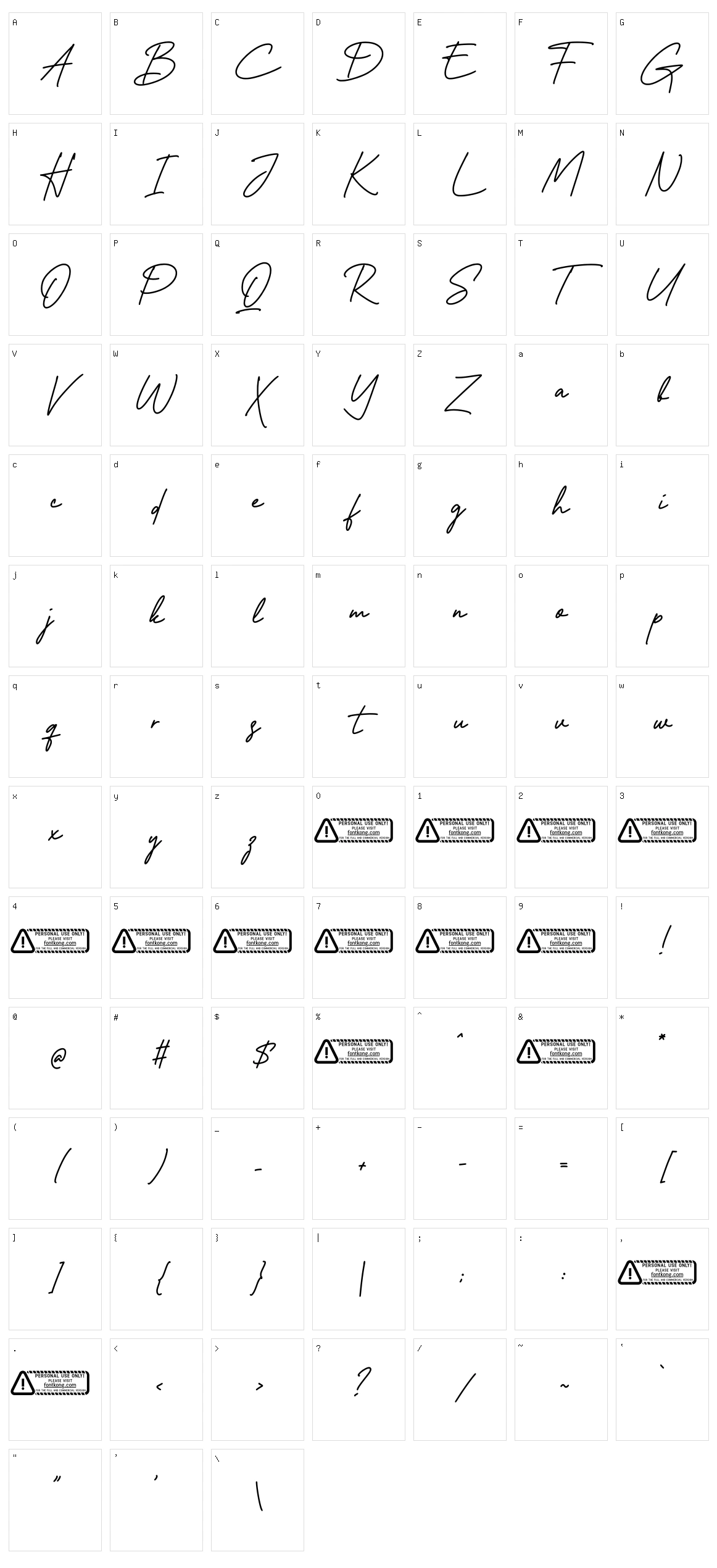
The free font Black Ashpalt is carefully designed by Kong Font, showcasing a thoughtful balance of creativity and usability and falls under the Script font style. When you download the ZIP file, it contains only 64.25 KB of font files, making it lightweight and quick to download. Please review the license details below to understand permitted usage and distribution rights. If license information is not available, we recommend using this font for personal projects only or contacting the author directly for commercial usage permissions.